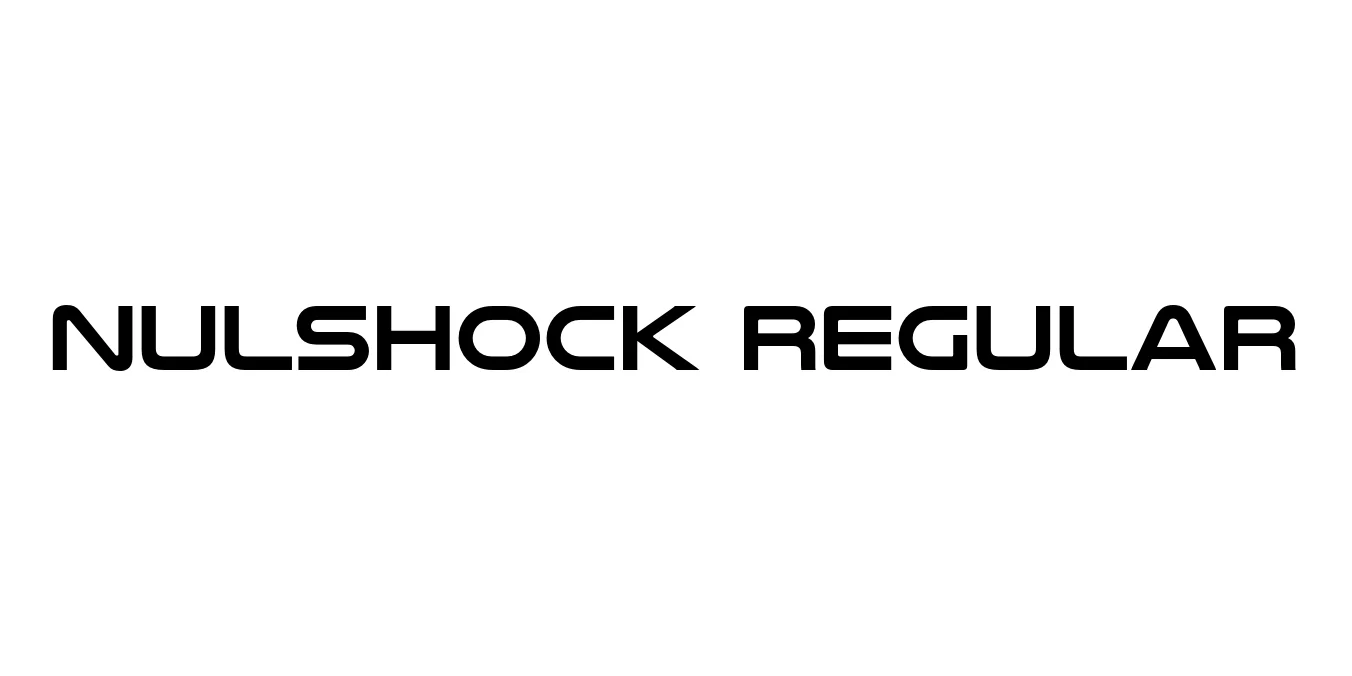
Nulshock Regular
Designed by Ray Larabie
| Category | Sans Serif / Techno |
Nulshock Regular is a powerhouse of modern typography, characterized by its ultra-wide proportions and a distinct futuristic aesthetic. Designed by Ray Larabie of Typodermic Fonts, this typeface draws heavily from the industrial and science fiction design languages of the late 20th century. Its squarish letterforms and mechanical precision make it an ideal choice for projects that require a sense of advanced technology, high-speed performance, or authoritative presence.
Over the years, Nulshock has become a staple in the gaming and automotive industries due to its stable and wide-set appearance. The font is engineered to maintain maximum visual impact at display sizes, making it perfect for bold headlines and digital interfaces. Whether utilized in cinematic titles or innovative corporate branding, Nulshock Regular conveys a vision of the future that is both grounded and strikingly contemporary.
Nulshock Regular Best Uses
Ideal for technology and automotive logos needing a wide, stable, and modern feel.
Perfect for head-up displays (HUDs), sci-fi menu interfaces, and title screens.
Great for large-scale posters and digital banners that require high-impact, short text.
Highly effective for bold, high-impact headers on tech-focused or portfolio websites.